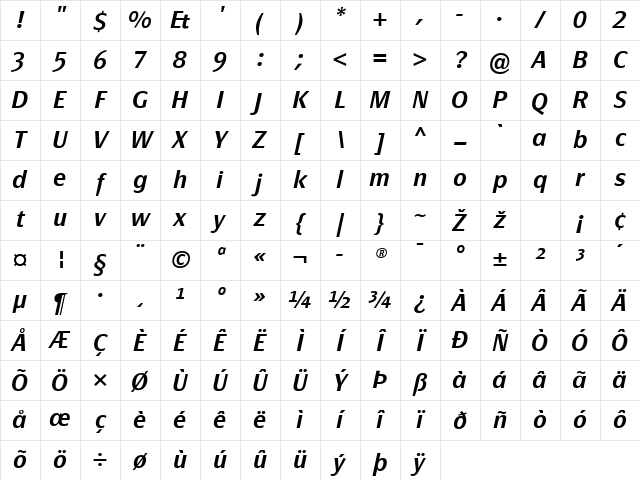
PageSansTF-DemiBoldItalic is a composed and adaptable typeface that performs quietly and consistently across a wide range of design contexts. The slanted form adds forward momentum and visual energy. Its bold stroke weight gives it real presence on the page.
Pro Tip: Use PageSansTF-DemiBoldItalic for emphasis, pull quotes, and subheadings where its slanted energy can add rhythm to the layout.
Who designed the PageSansTF-DemiBoldItalic Regular font?
This font was published by Albert Boton, published by FontShop International for the FontFont Library. Check the technical specs section for copyright and designer details.